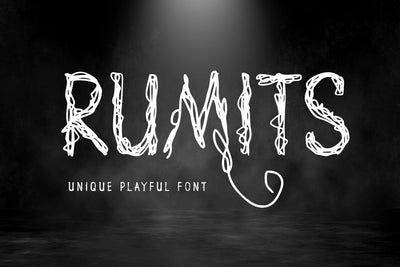
Rumits
introducing
RUMITS
- unique playful font-
RUMITS is handwritten font with stringy effect.
It is great for branding, quotes, logos, t-shirt designs, tote bag designs, cards, banners, social media, and more.